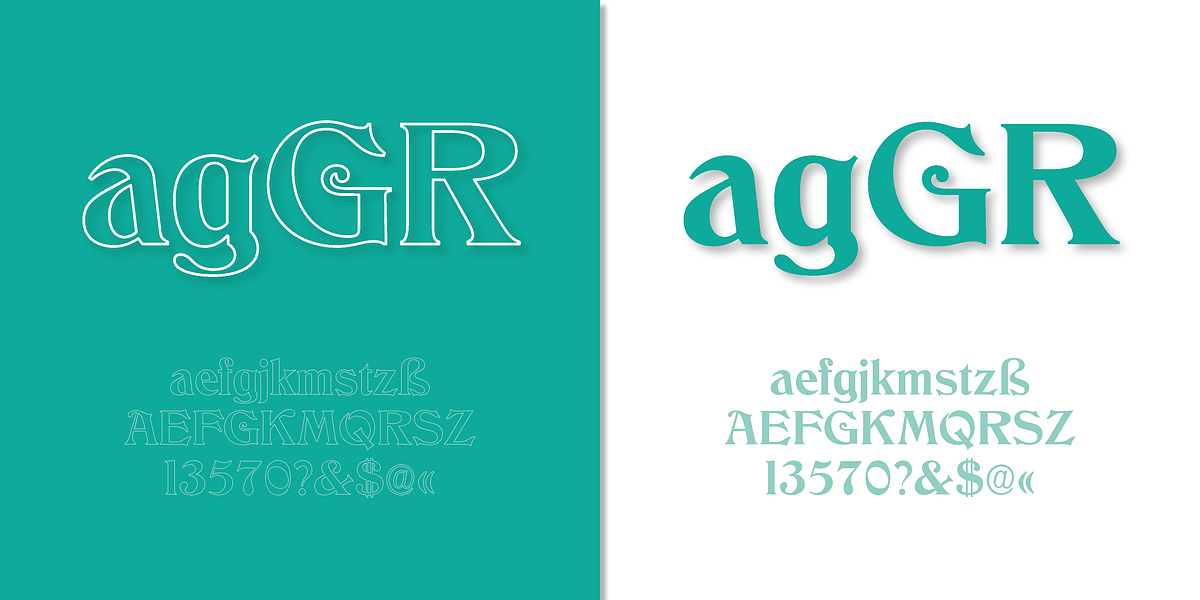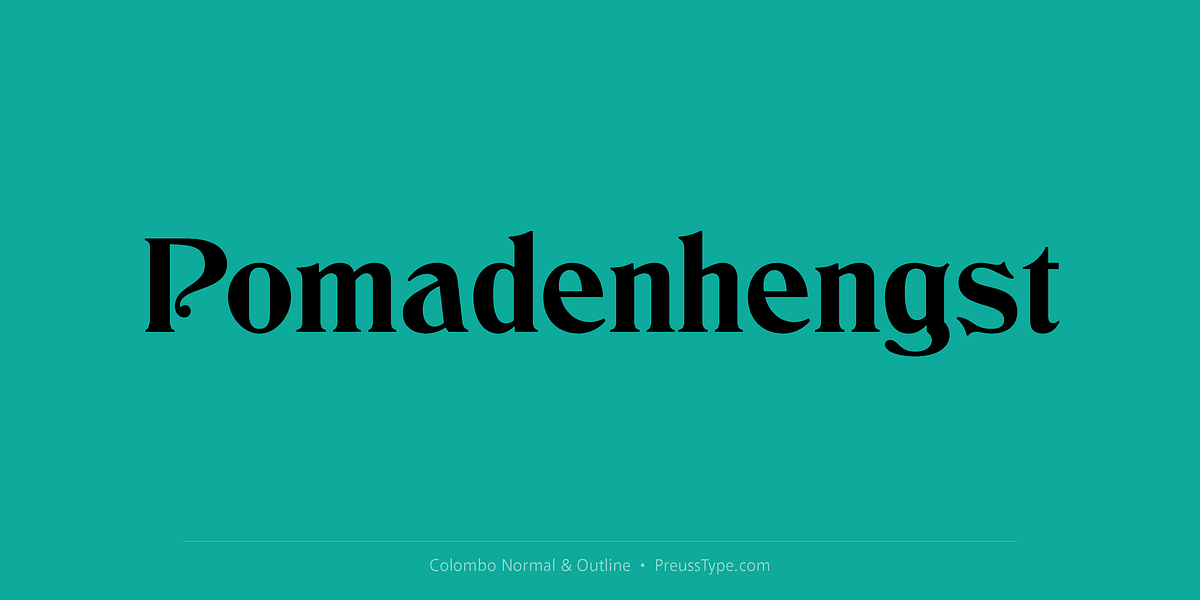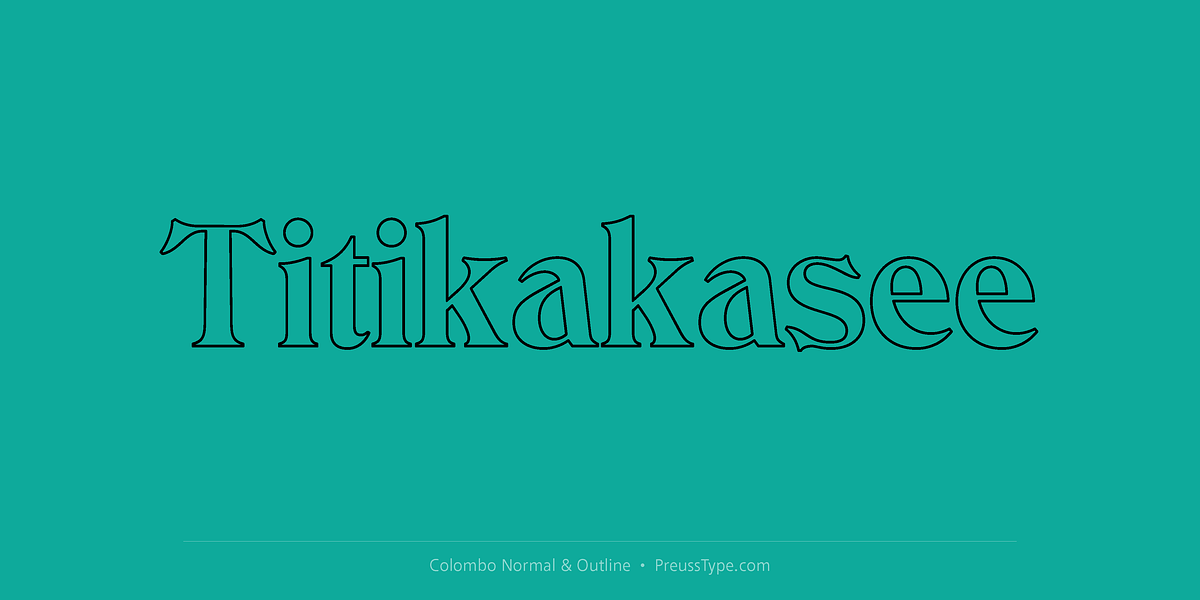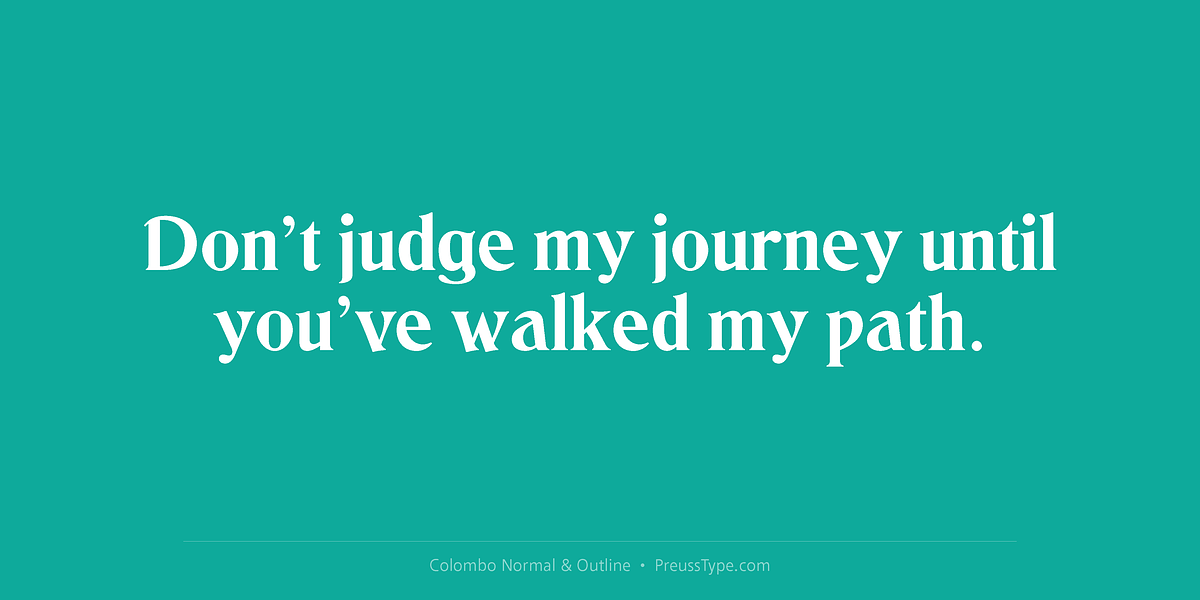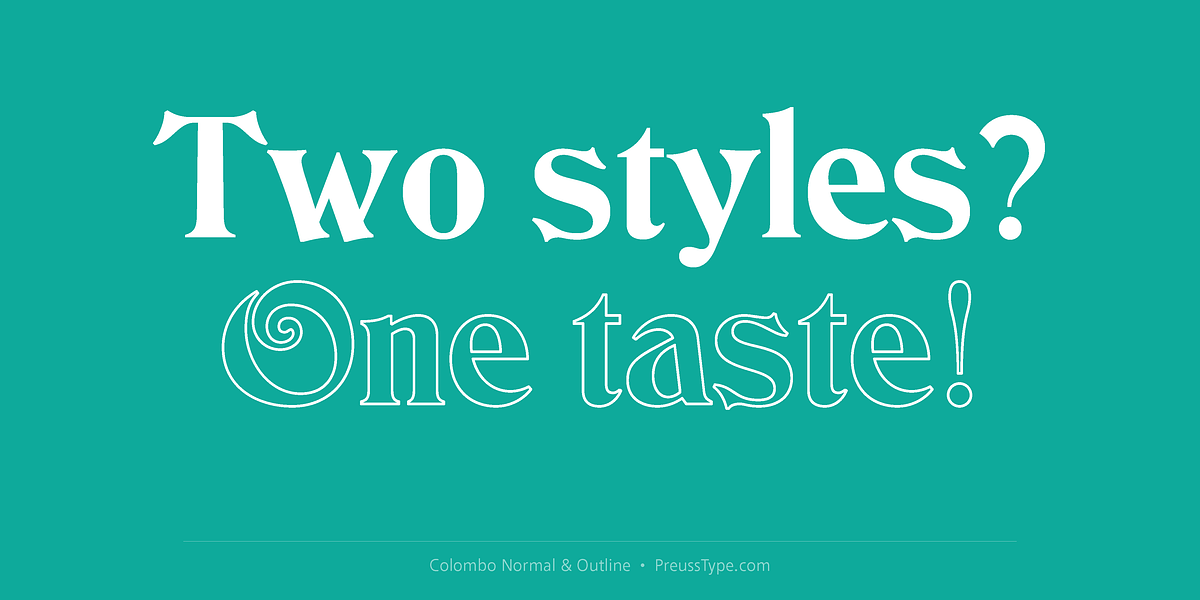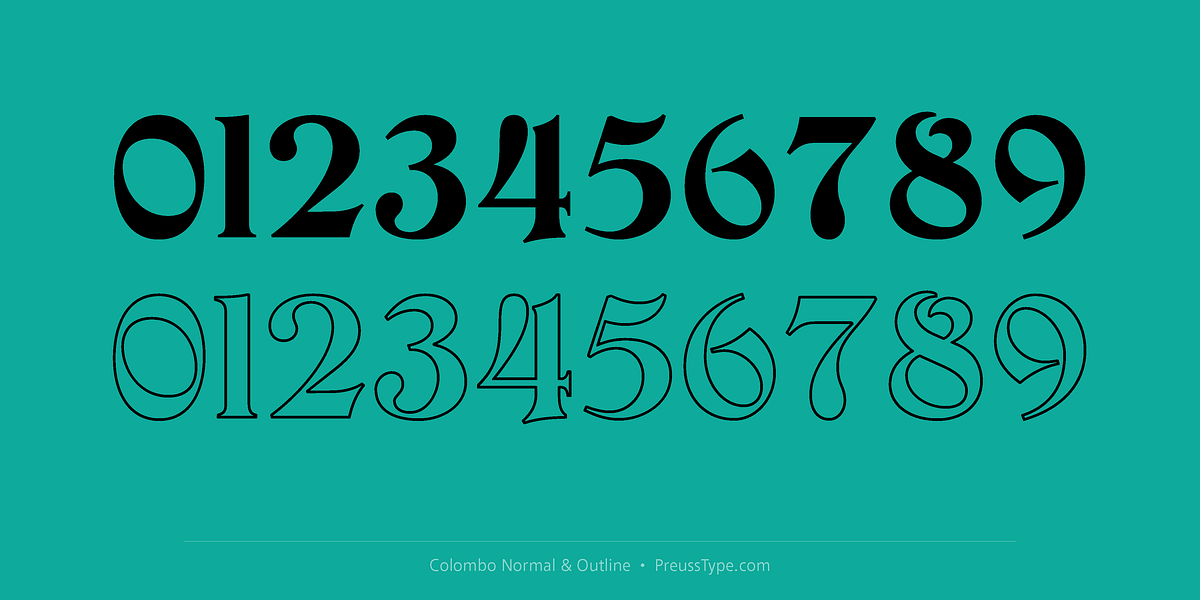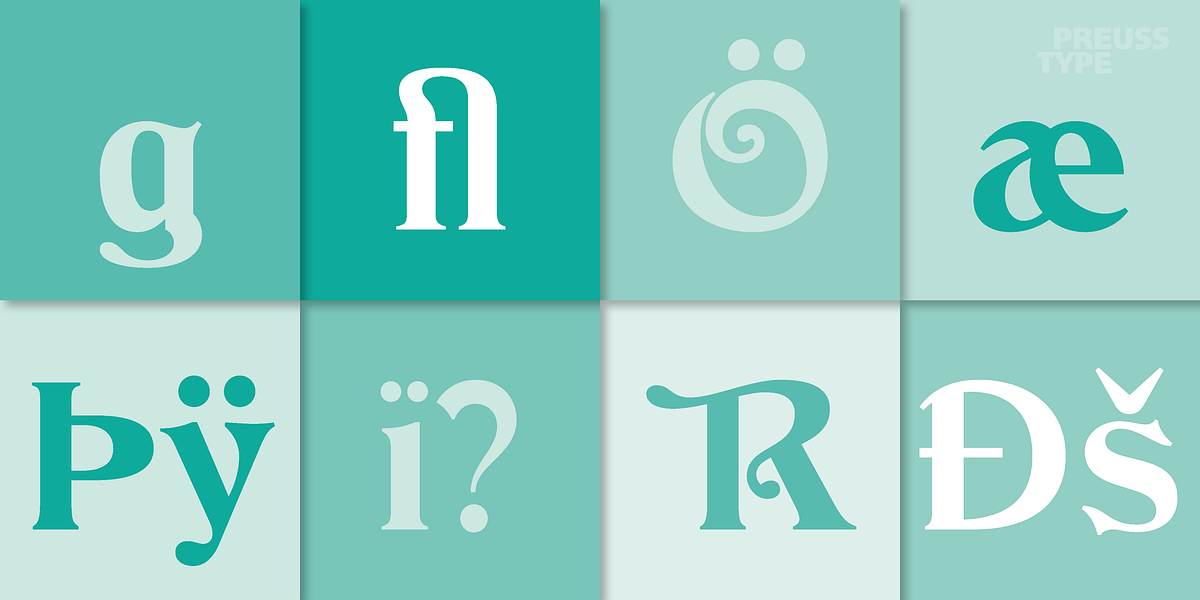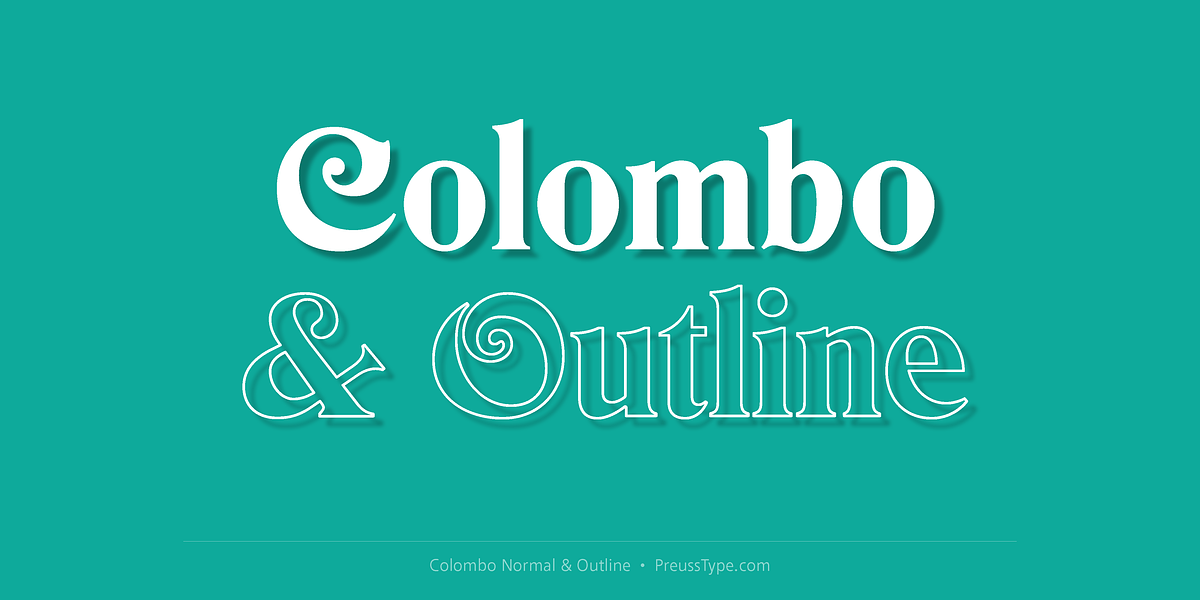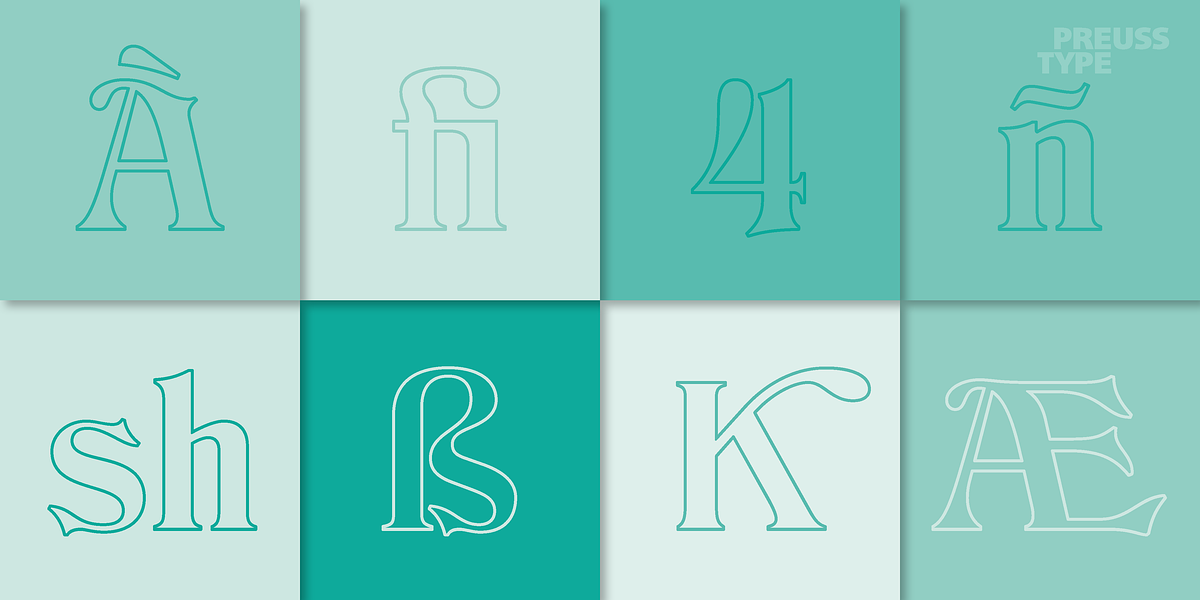
Colombo
Hermann Ihlenburg, a prolific and influential type designer from the 19th century, created Colombo. This calligraphic display serif font features elegant, curly strokes characteristic of 1870s typography. Its outline style further enhances its decorative appeal. Colombo is well-suited for headlines and display text where a touch of vintage elegance is desired.